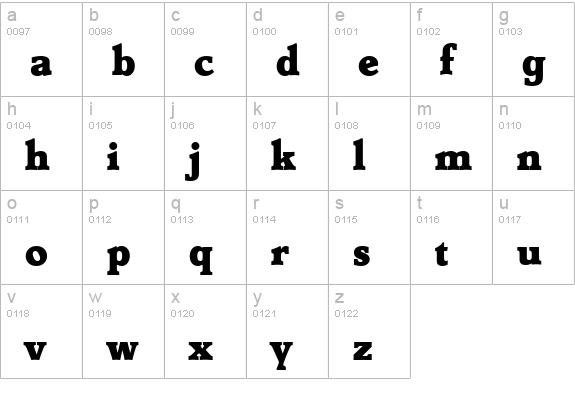
DerringerSerial-Heavy-Regular is a heavy, high-impact variant in the DerringerSerial typeface family \xE2\x80\x94 well suited to high-impact headlines, posters, and display advertising.
DerringerSerial-Heavy-Regular font is a bold and impactful typeface that exudes strength and authority. Its heavy weight and sharp serifs make it perfect for headlines, titles, and other display purposes where you want to make a statement. The font commands attention and adds a touch of sophistication to any design project. Best of all, DerringerSerial-Heavy-Regular font is available for free download at FontsMarket.com. This means you can easily access this powerful font and use it in your projects without any cost. Whether you're designing posters, logos, or websites, DerringerSerial-Heavy-Regular font is a versatile and eye-catching choice that will elevate your work to the next level. Download it today and add a touch of bold elegance to your designs.